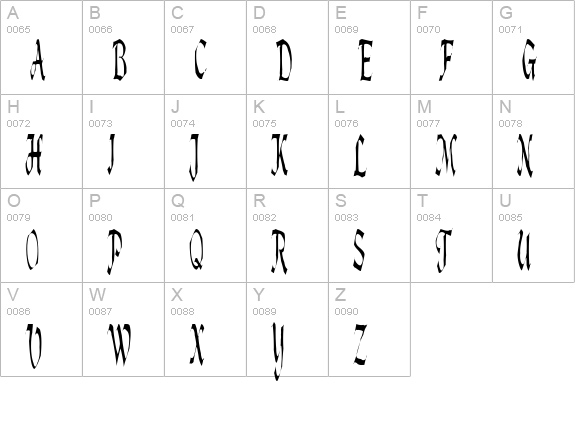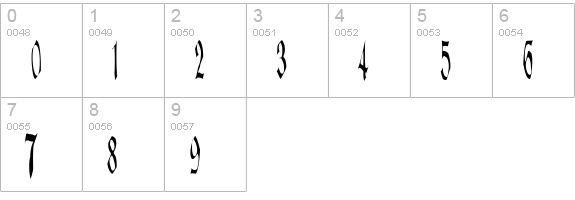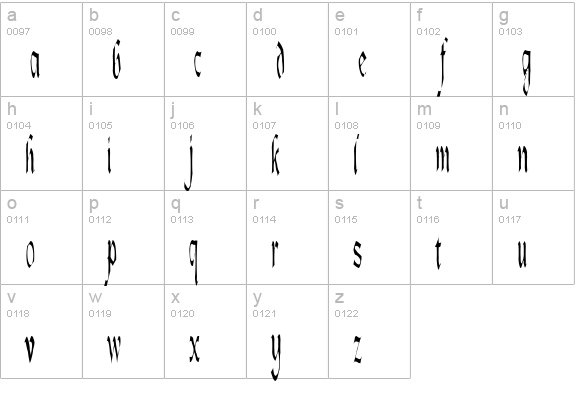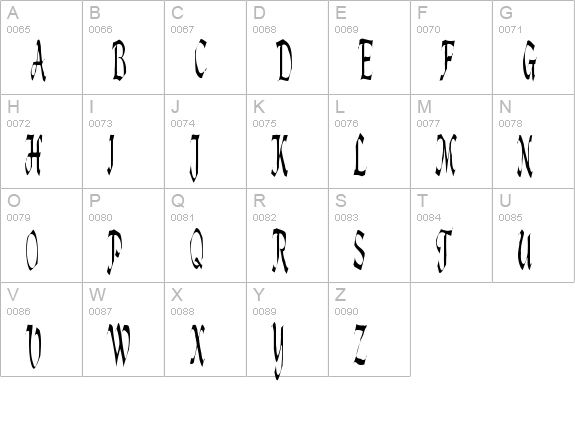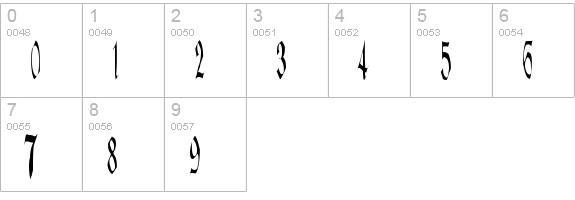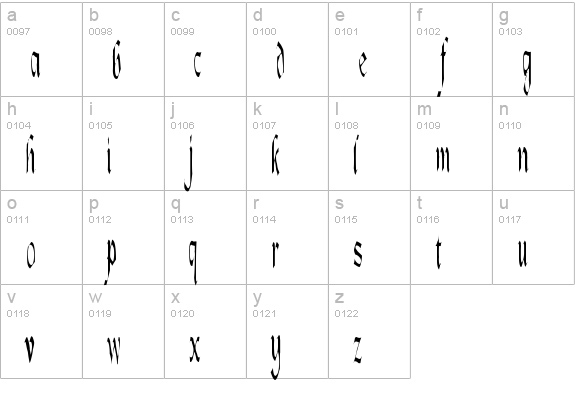
Lotharus Font Details
Lotharus font is a stunning and elegant typeface that exudes sophistication and style. With its graceful curves and clean lines, this font is perfect for creating eye-catching designs that stand out. Whether you're working on a branding project, designing a website, or creating a poster, Lotharus font is sure to make a lasting impression. What sets Lotharus font apart is not only its beauty but also the fact that it is available for free. That's right – you can download this exquisite font at no cost from FontsMarket.com. Don't miss out on the opportunity to add Lotharus font to your collection and elevate your design projects to new heights. Download it today and let your creativity shine!